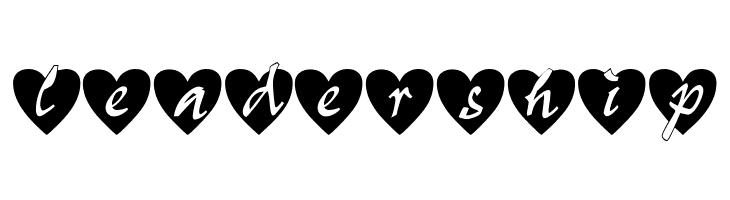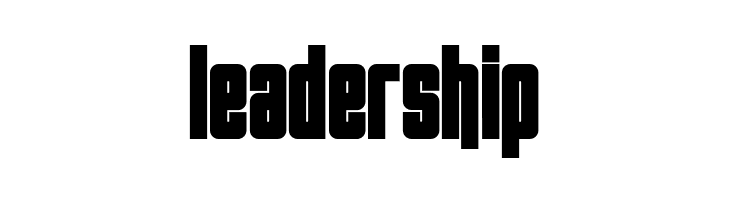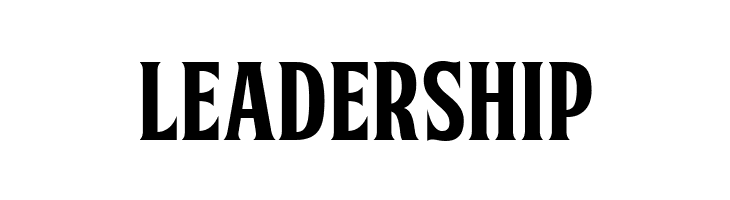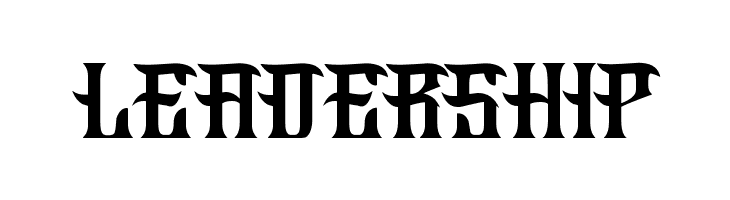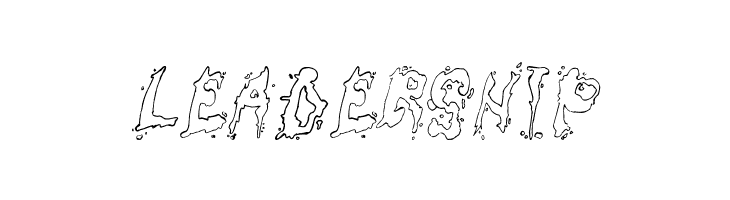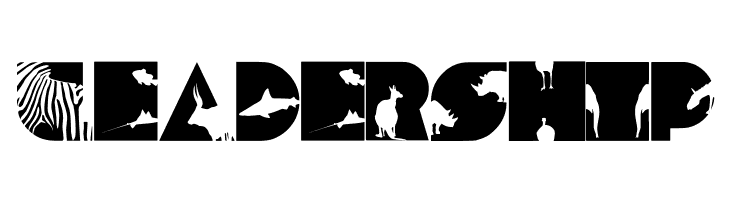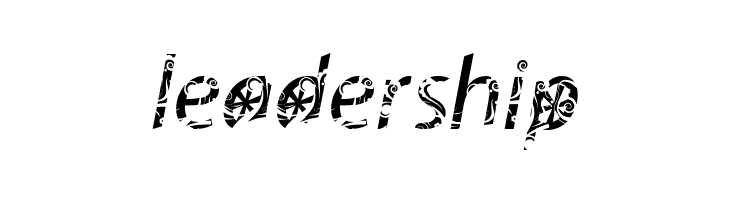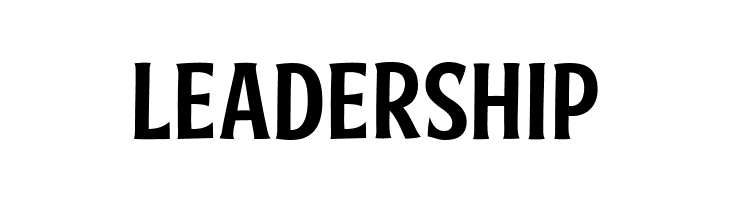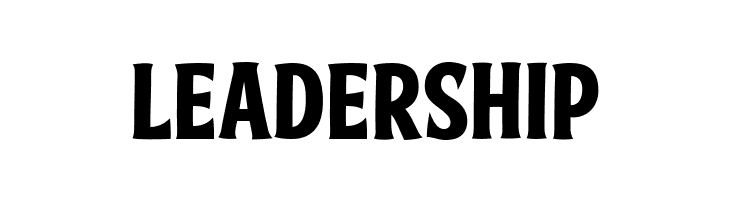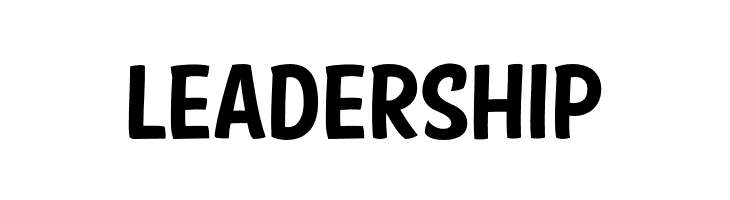
A bold, decorative font with animal silhouettes integrated into each character.
A distressed, grunge-style font with a textured, vintage appearance.
A decorative font with floral and swirl embellishments.
A decorative font with intricate, ornamental uppercase letters and streamlined lowercase characters.
An organic, vine-like decorative font with intricate details.
A decorative font inspired by vines and branches, featuring organic and intricate designs.
A decorative font with elegant, elongated serifs and intricate details.
A bold, angular graffiti-style font with sharp, jagged edges.
An ornate, vine-embellished decorative font with a whimsical, nature-inspired design.
A scouting-themed decorative dingbat font with detailed icons.
A bold, geometric font with thick strokes and tight spacing, perfect for impactful designs.
A bold, high-contrast font with a vintage yet modern appeal.
A bold, modern font with tall, condensed characters and consistent stroke width.
A playful, handwritten font with flowing, cursive-like strokes and a modern aesthetic.
A whimsical and decorative font with a playful, hand-drawn style.
Bold, graffiti-inspired display font with rough, expressive letterforms.
A bold, distressed font with a rugged, grunge aesthetic.
A bold, gothic-inspired font with sharp, angular lines and a modern twist.